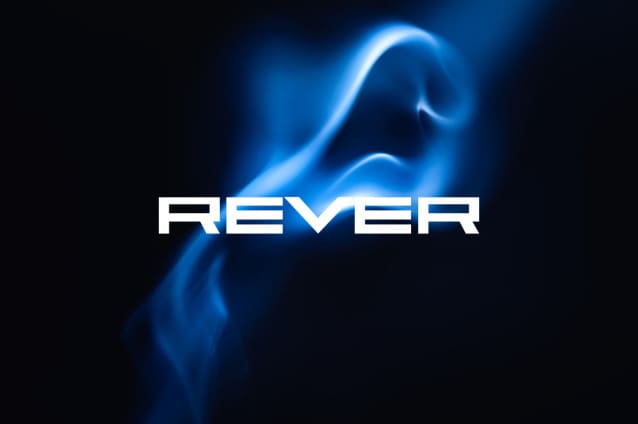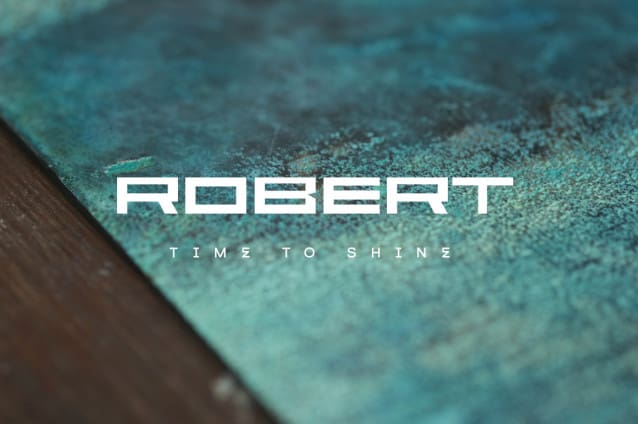
Faqro Extended Font
Faqro Extended Font – Ditch the generic, embrace the expressive. In a world saturated with pixels and noise, your brand deserves to stand out. Our meticulously crafted digital tech fonts are more than just letters – they’re the secret weapon to unlocking your brand’s full potential.